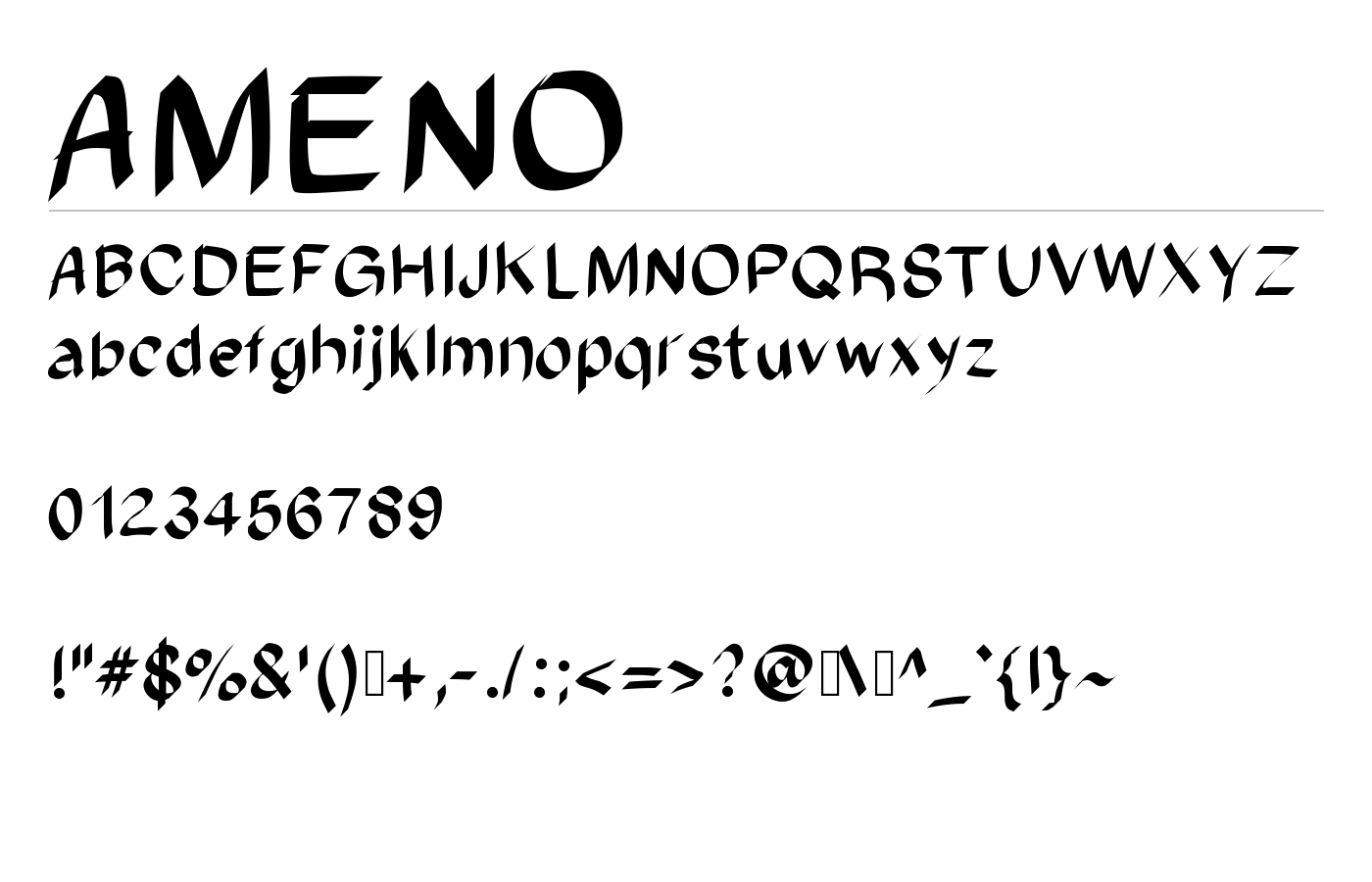
AMENO is a unique serif font with a bold, slightly condensed structure and sharp, pointed strokes that give it a dynamic, handcrafted feel. It features distinct and playful letterforms with high contrast and angled details, making it ideal for eye-catching headlines, themed designs, and creative branding that seeks a dramatic, artistic vibe. This font works well where individuality and a striking, stylized presence are desired.
AMENO Font
About AMENO Font